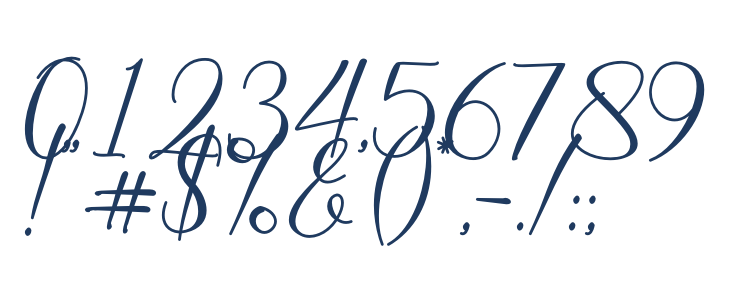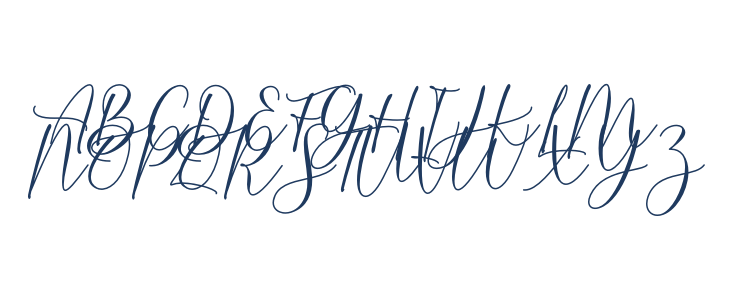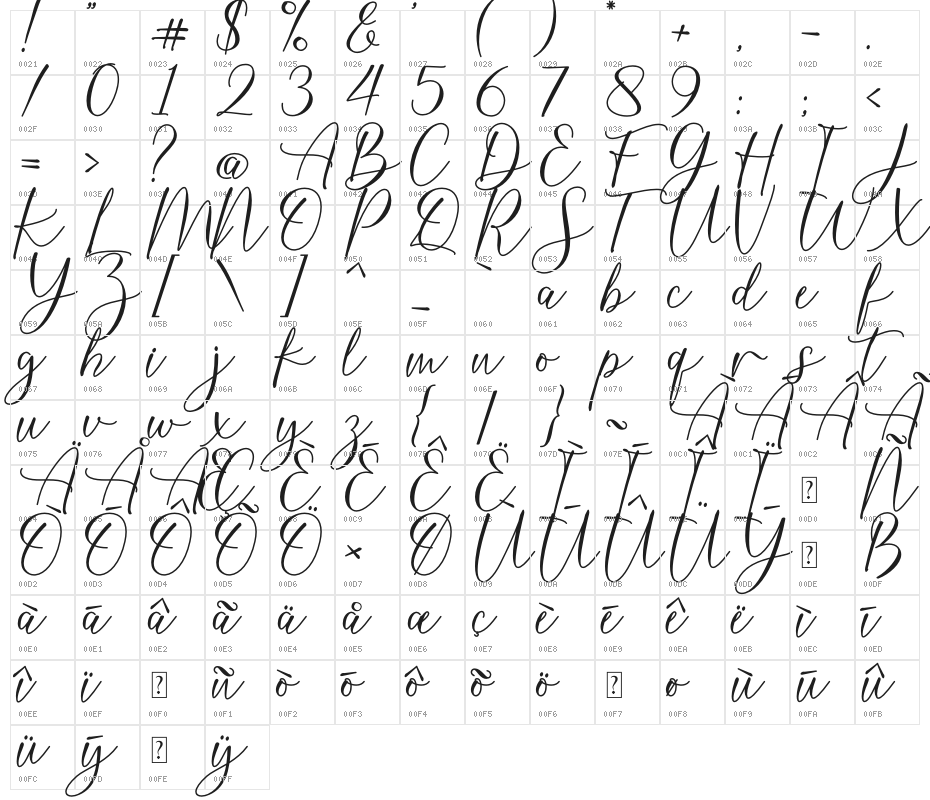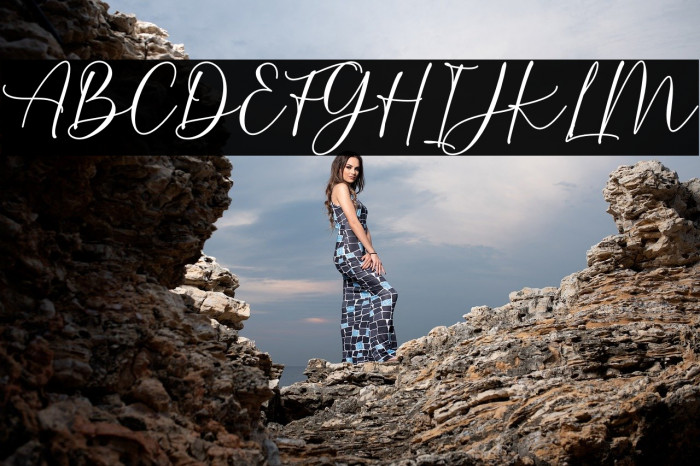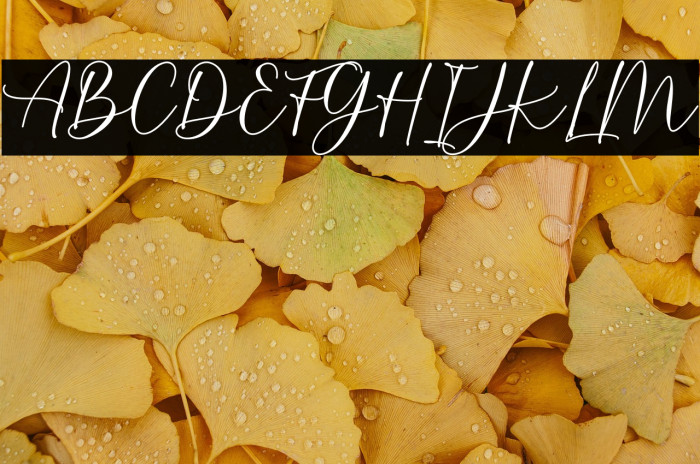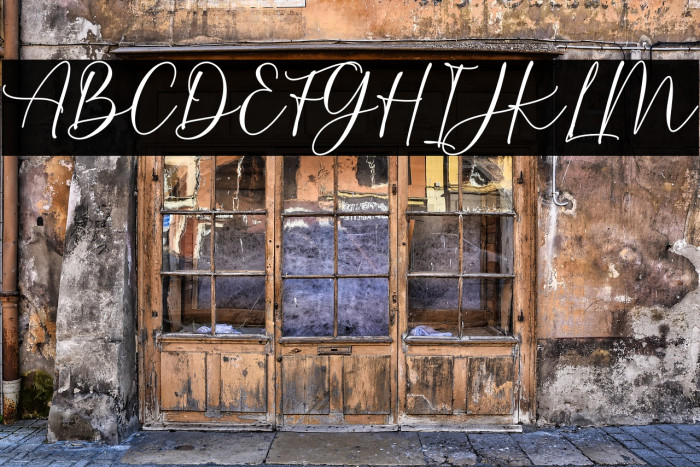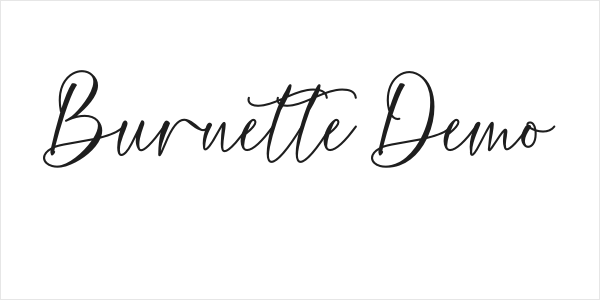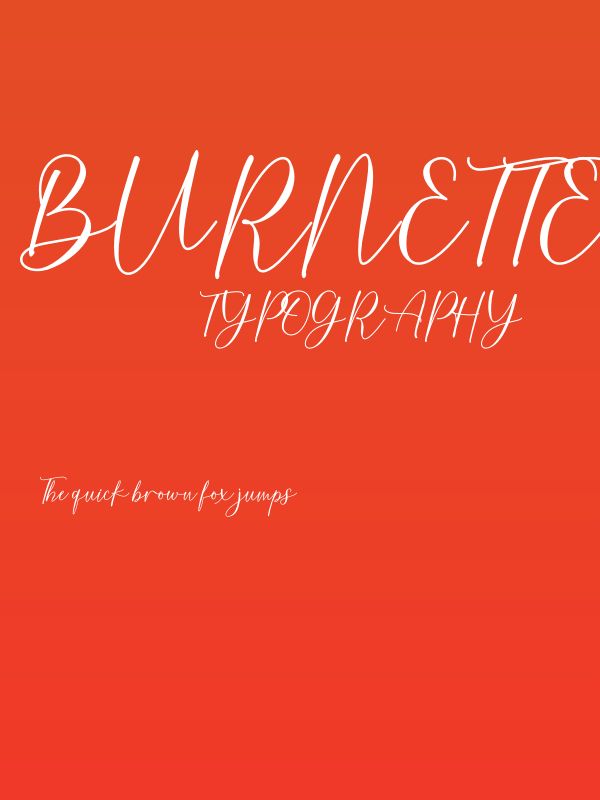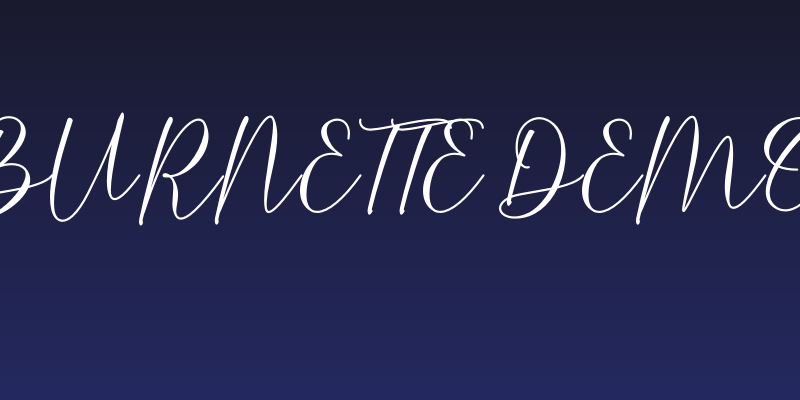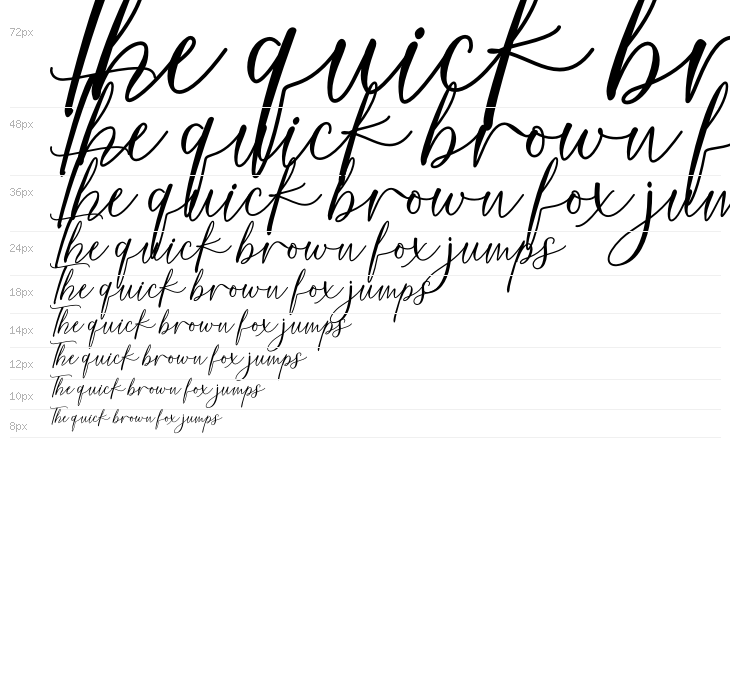
Burnette Demo Font
Burnette Demo Description
A flowing, cursive script font with elegant, connected letterforms and a handwritten feel. The strokes are thin and consistent, with high ascenders and long descenders, giving it a graceful and airy appearance.
| Overall Style | Decorative, Handwritten, Elegant |
| Use Case | Logos, Invitations, Headlines, Decorative text |
| Proposed Projects | Wedding invitations, greeting cards, personal branding, quotes, feminine product packaging, social media graphics. |